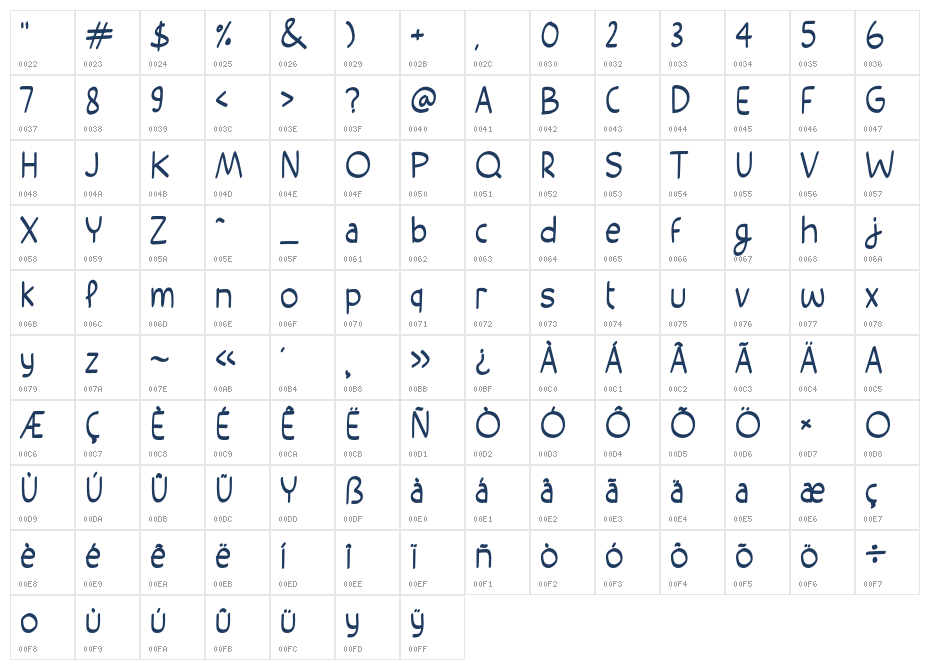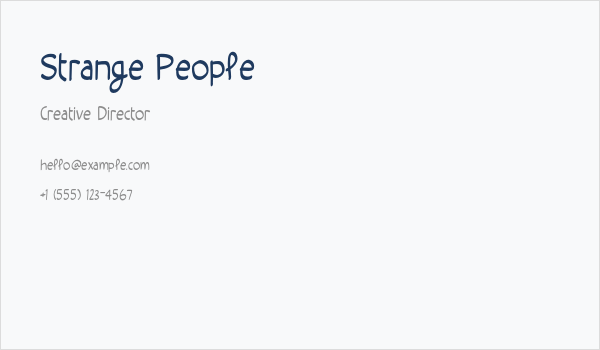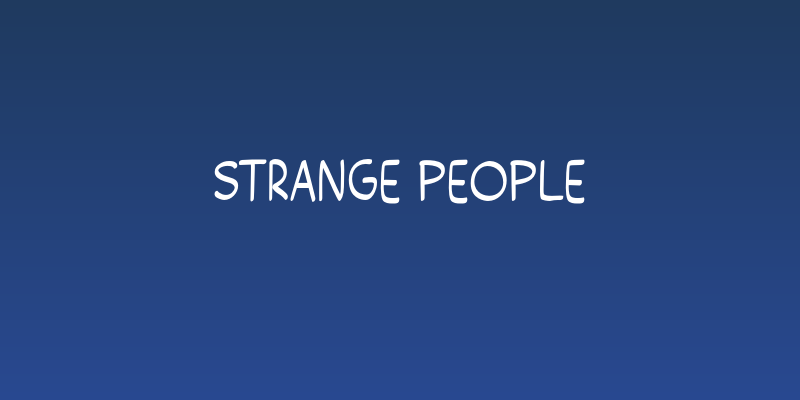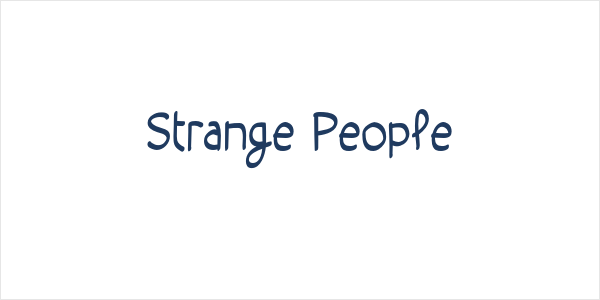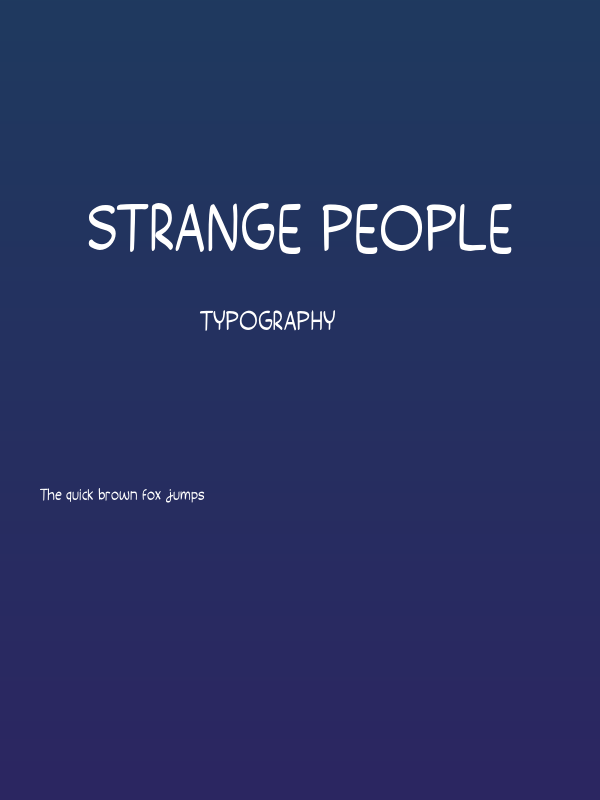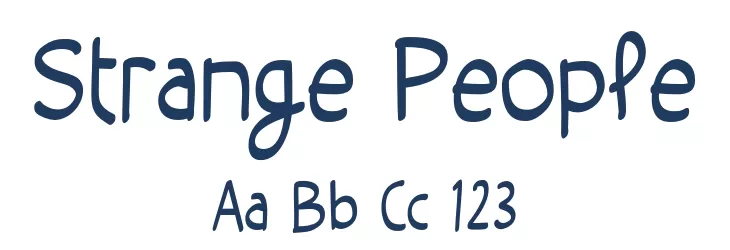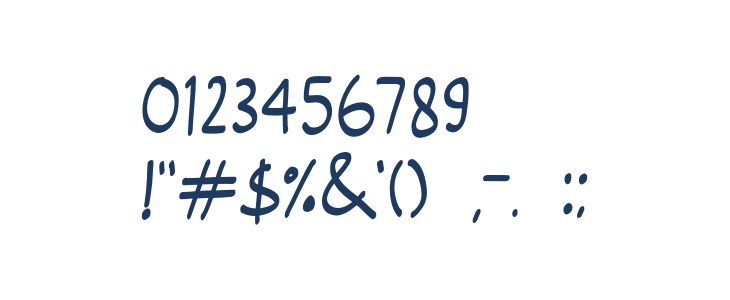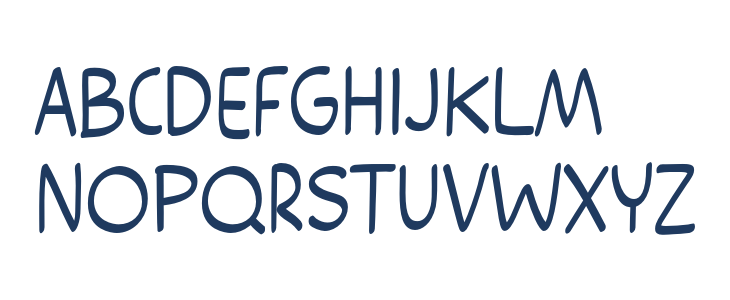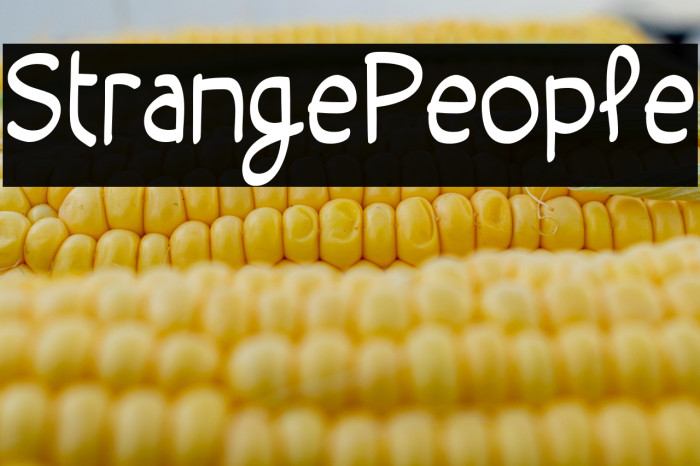
Strange People Font
Strange People Description
A playful, handwritten style font with a casual and friendly appearance, featuring slightly irregular shapes and a smooth flow.
| Overall Style | Casual, Playful, Friendly |
| Use Case | Children's books, greeting cards, informal branding, educational materials. |